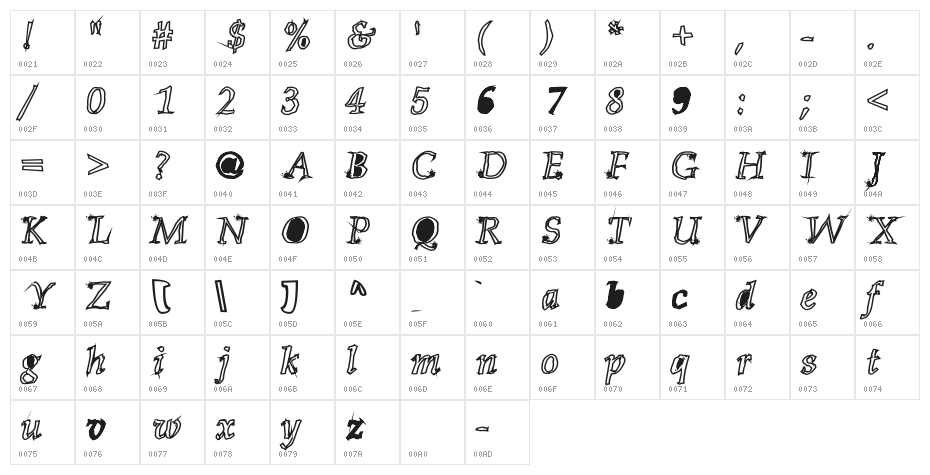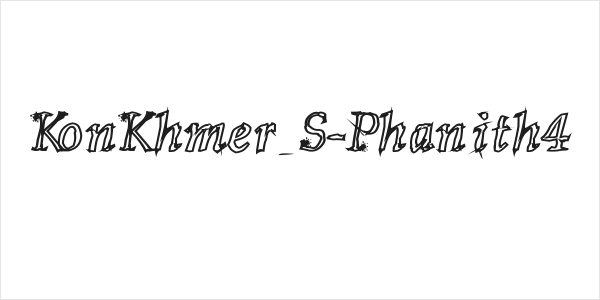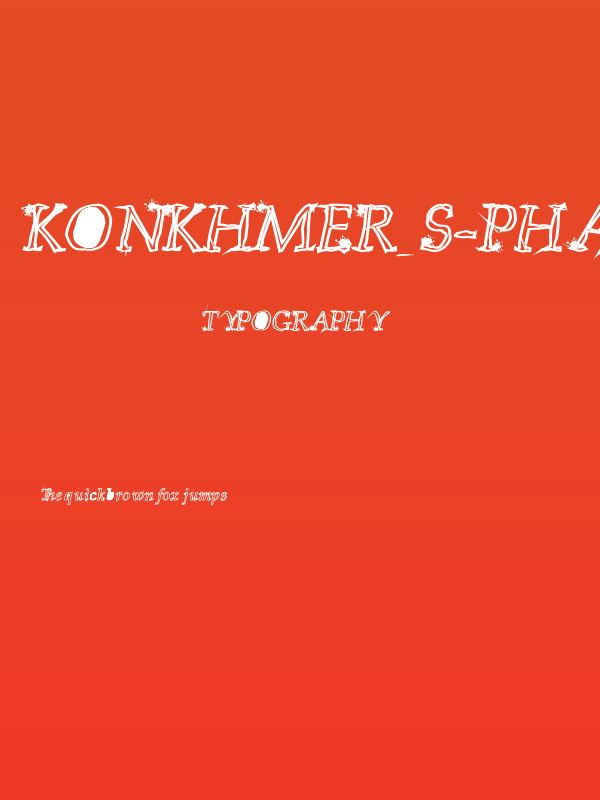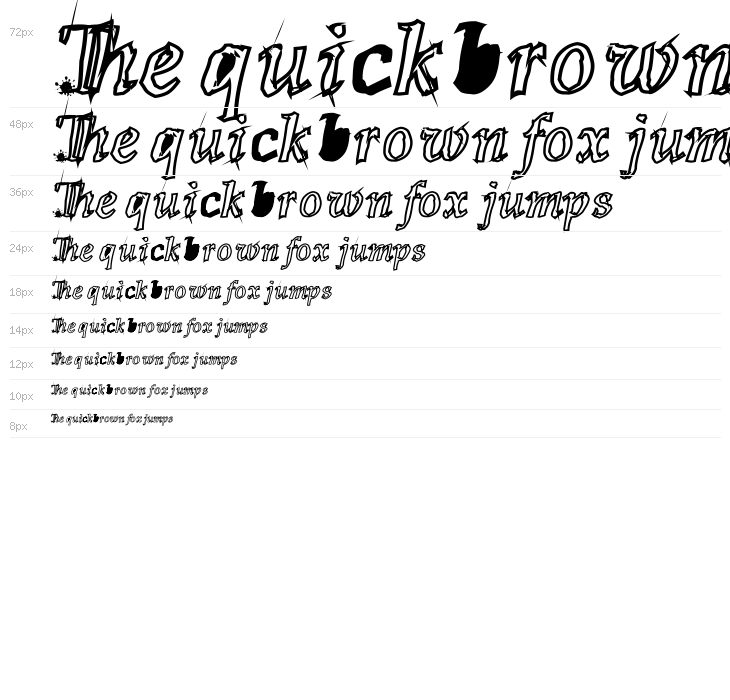
KonKhmer_S-Phanith4 Font
KonKhmer_S-Phanith4 Description
This font features a bold, distressed style with a grunge aesthetic. The characters are designed with rough edges and splatter-like details, giving them a dynamic and edgy appearance. The uppercase and lowercase letters maintain a consistent style, with exaggerated serifs and varying stroke widths that create a sense of movement and energy. The numbers and special characters follow the same design principles, ensuring uniformity across the font. This font's unique style makes it stand out, ideal for projects that require a bold and artistic touch.
| Overall Style | Grunge, Artistic |
| Proposed Projects | Ideal for album covers, posters, streetwear branding, and edgy graphic designs. |